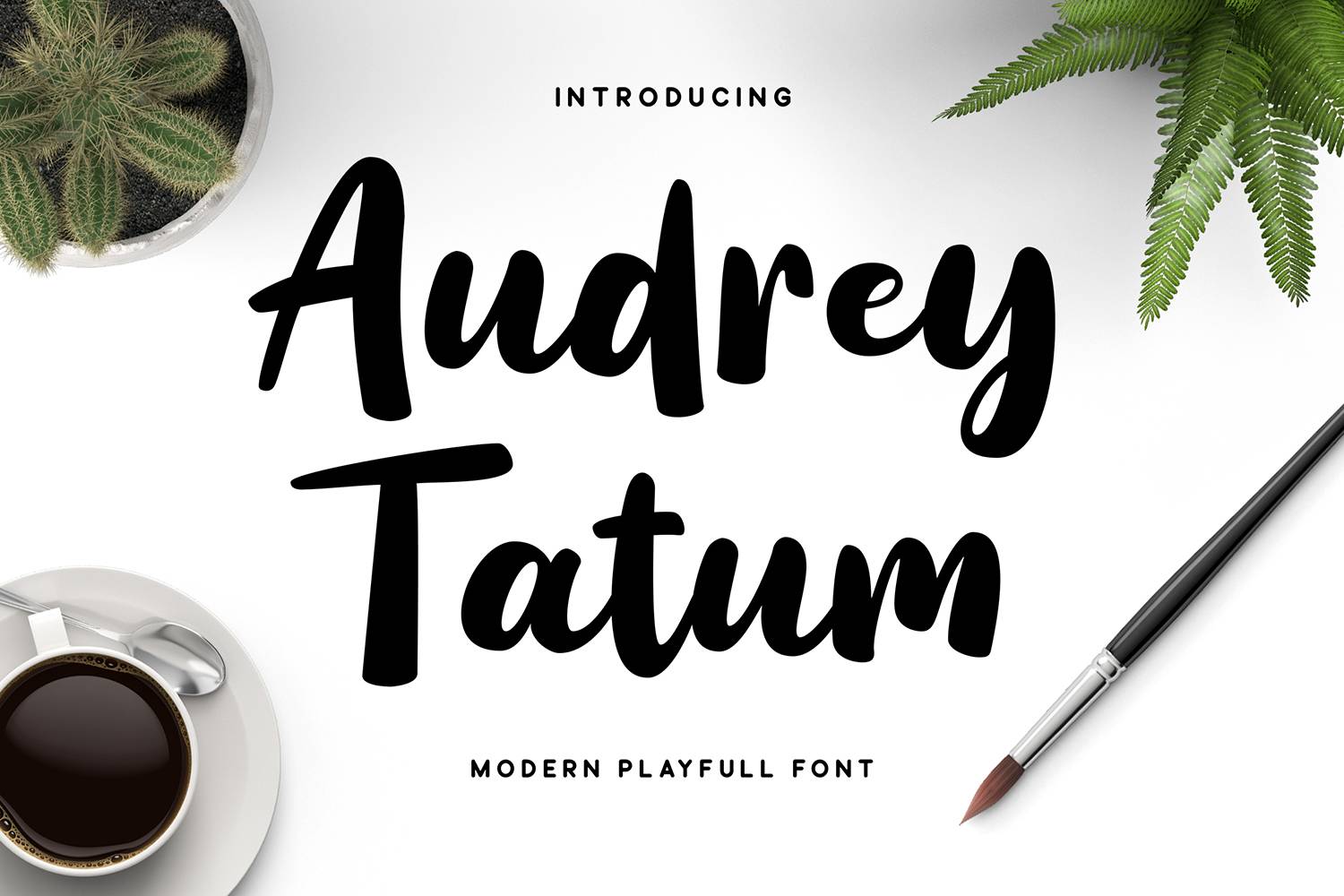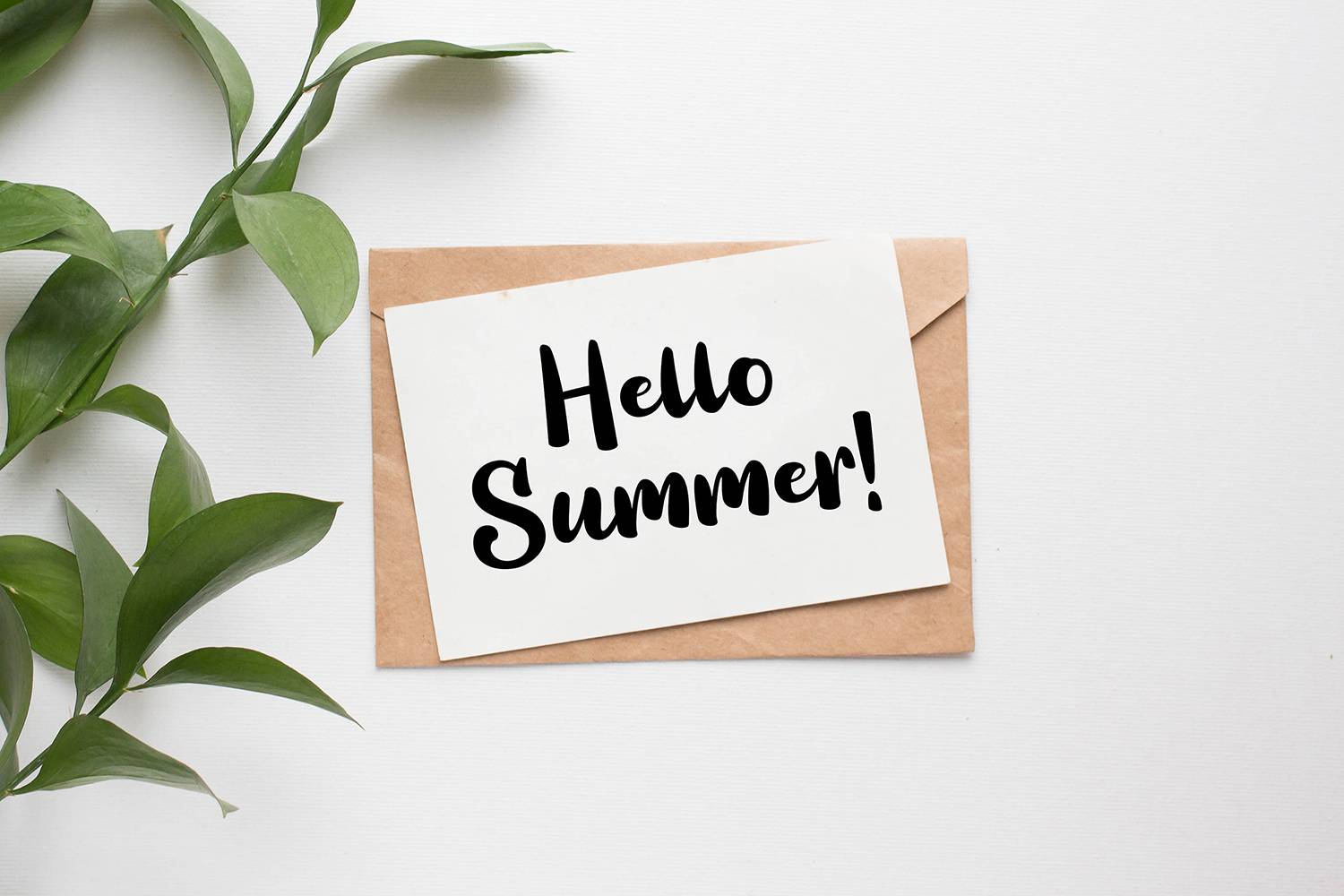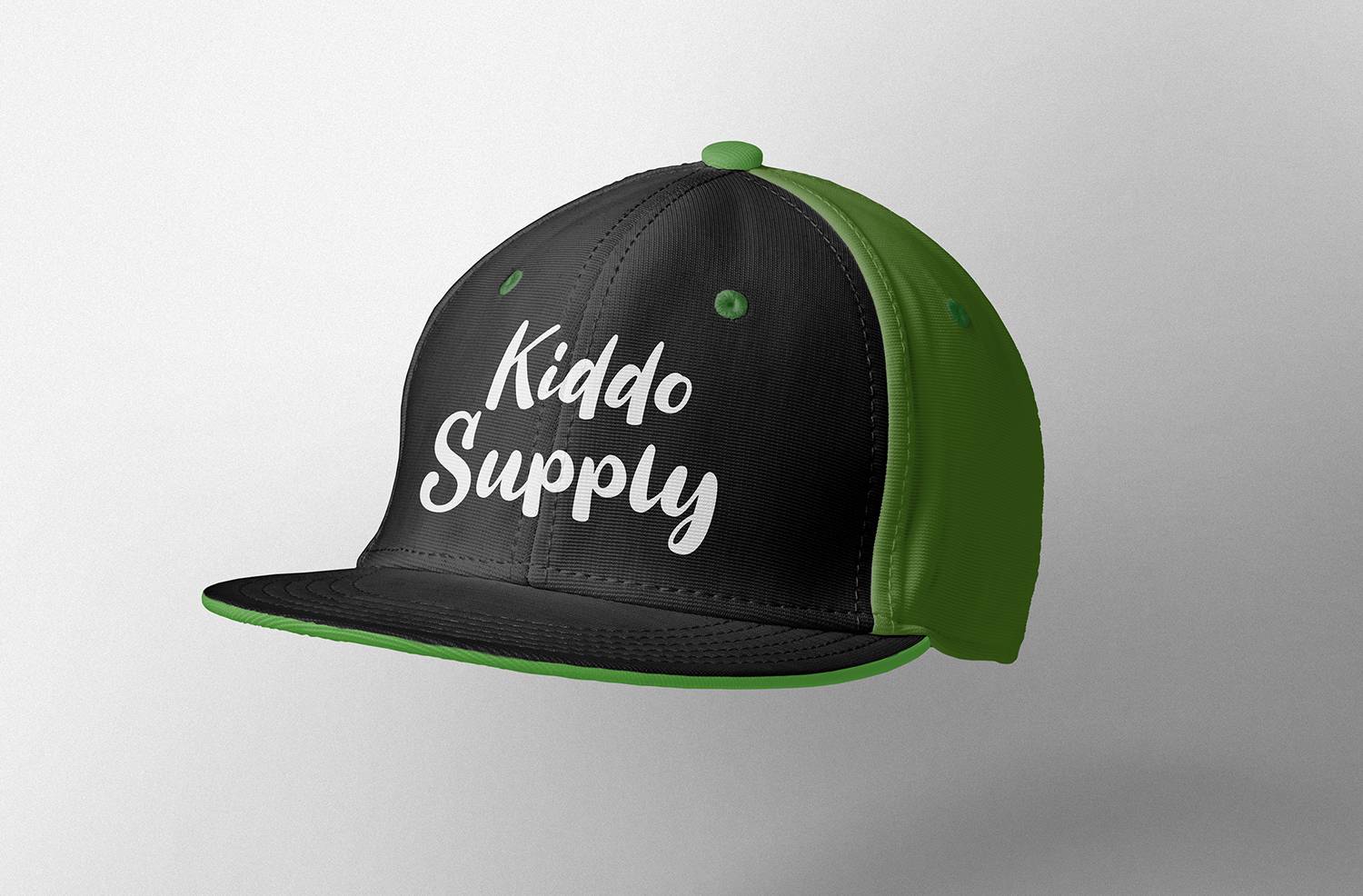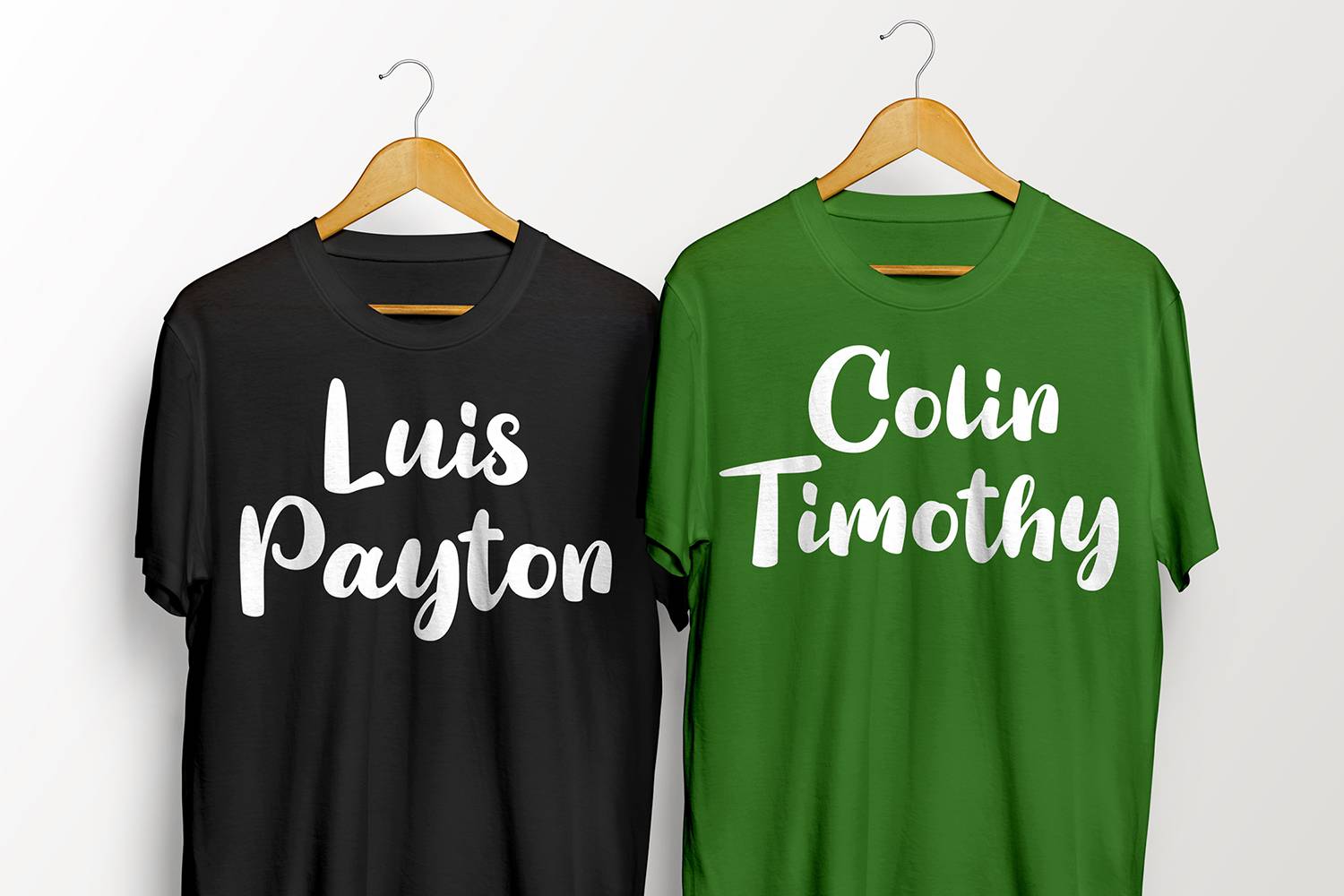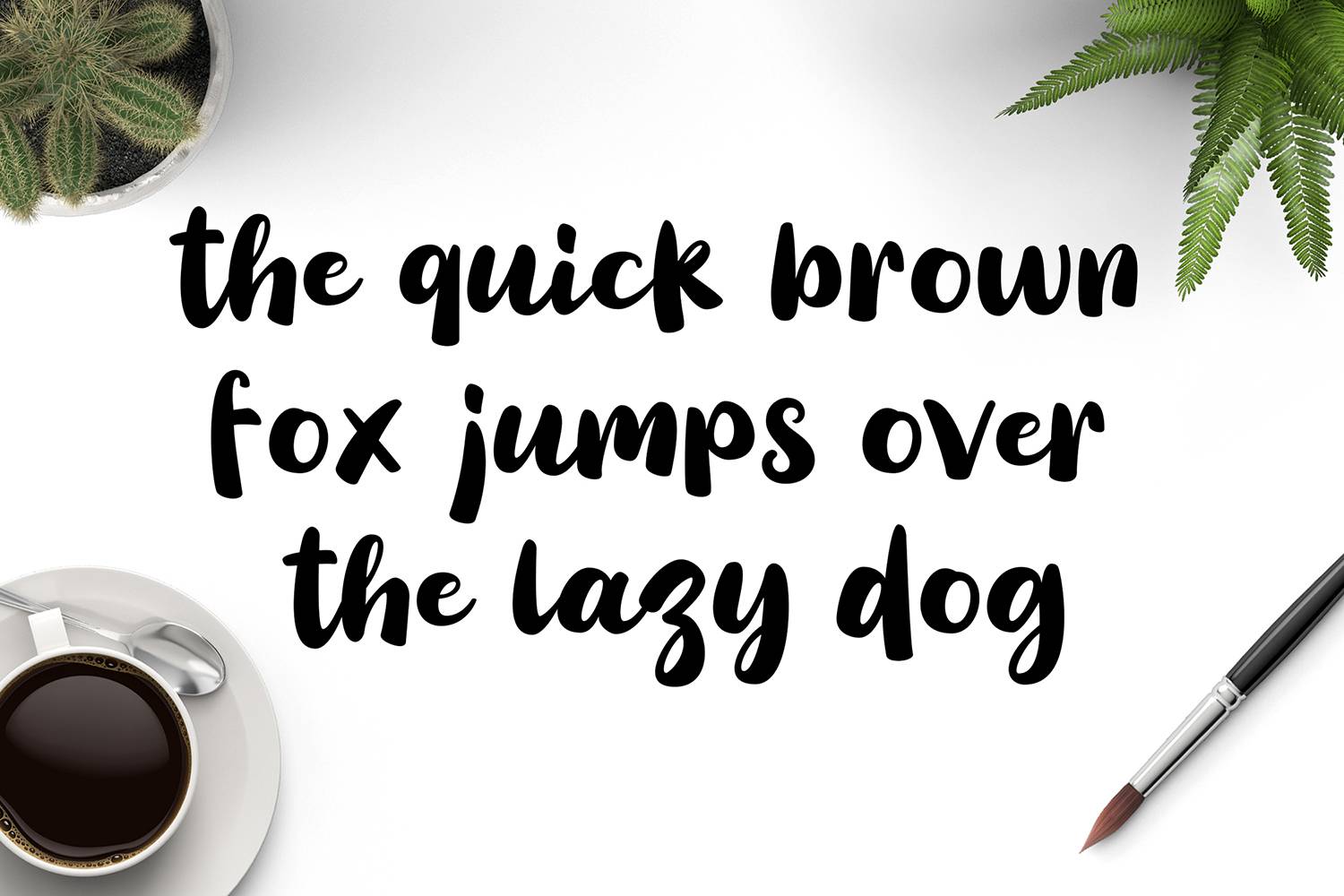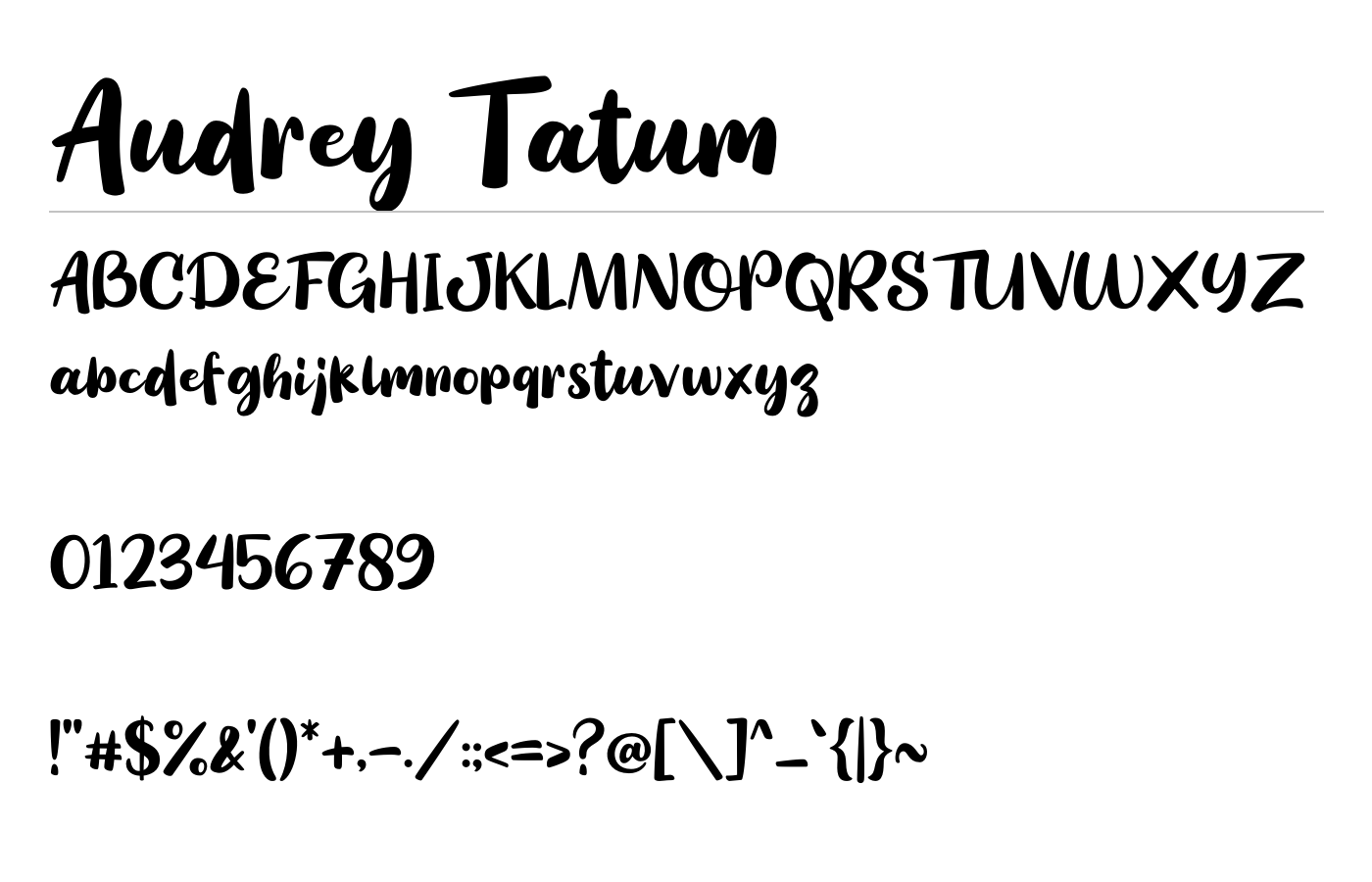
Audrey Tatum is a playful and casual script font with a handwritten feel, featuring smooth, rounded strokes and a lively rhythm. Its medium weight and balanced x-height make it versatile for creative and friendly design projects, while its unique character shapes add charm and personality. This font is ideal for invitations, branding, and social media graphics where a warm and approachable vibe is desired.
Audrey Tatum Font
About Audrey Tatum Font
| Font family | Audrey Tatum Font |
| Release date | 2020-05-26 |
| Designer | Akhmad Reza Fauzi |